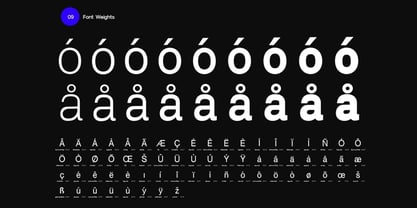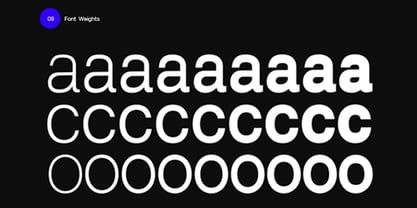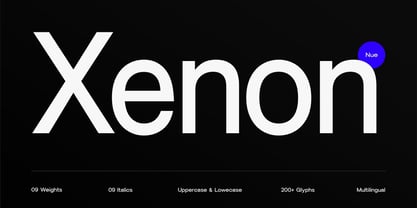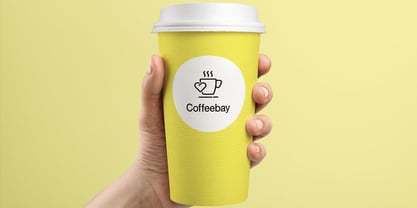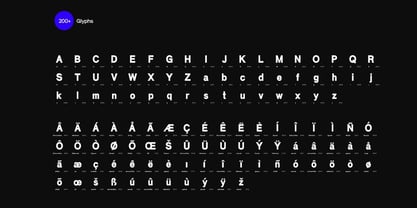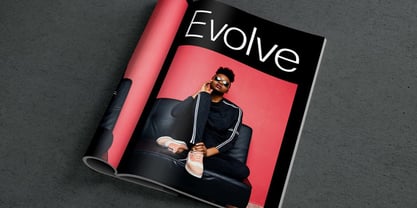
Xenon Nue
by Webhance
The Xenon Nue Font Family was designed by Alwin Johnson and published by Webhance. Xenon Nue contains 9 styles and family package options.
Introducing Xenon Nue, a sleek and versatile sans-serif font family meticulously crafted to elevate your design projects with its futuristic appeal and refined simplicity. Featuring 9 meticulously designed weights—ranging from the delicate Thin to the commanding Heavy—alongside their corresponding italics, Xenon Nue offers a total of 18 fonts to fulfill all your creative needs.
This font is ideal for a wide range of applications, including branding, logo design, web development, poster creation, social media graphics, video overlays, and more. Its seamless integration across print and digital platforms ensures consistent and captivating results in any medium.
Xenon Nue boasts clean lines, precise geometry, and exceptional legibility, making it perfect for conveying information with clarity and style. Whether you're crafting a cutting-edge logo or designing sleek interface elements, Xenon Nue provides the versatility and sophistication to bring your vision to life.
Experience the future of typography with Xenon Nue and unlock endless possibilities for your design endeavors.